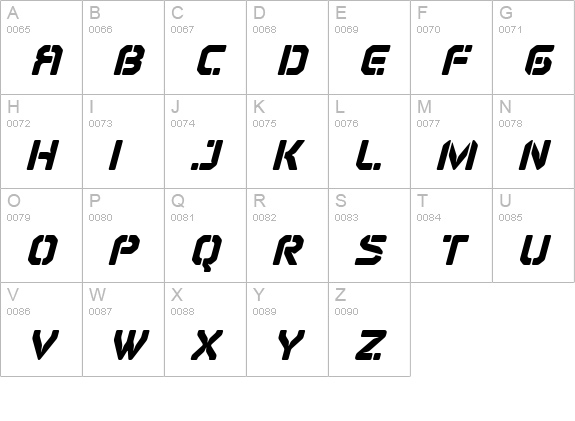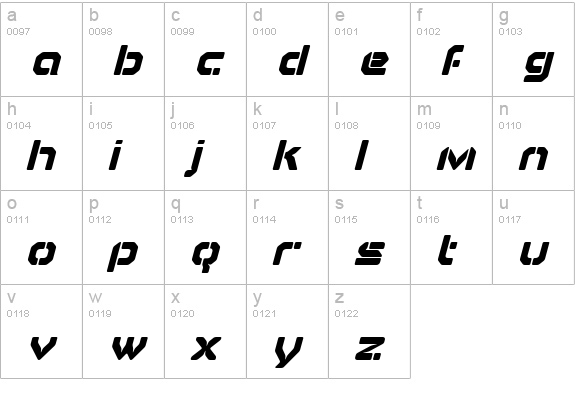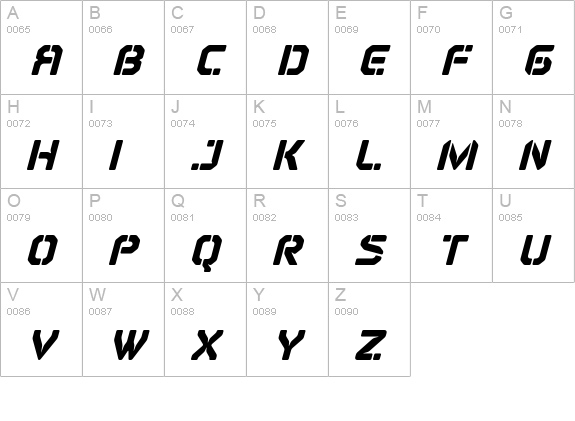
Airbrake RoundedOblique Font Details
Airbrake RoundedOblique is a modern and stylish font that adds a touch of elegance to any design project. With its unique oblique angles and rounded edges, this font is perfect for creating eye-catching titles, logos, and branding materials. The sleek and sophisticated look of Airbrake RoundedOblique will surely make your designs stand out. The best part is that Airbrake RoundedOblique is available for free download at FontsMarket.com. You can easily access this versatile font and enhance your creative projects without any cost. Whether you're a graphic designer, artist, or enthusiast looking for a fresh and contemporary typeface, Airbrake RoundedOblique is the perfect choice. Download it today and elevate your designs with this stunning font.